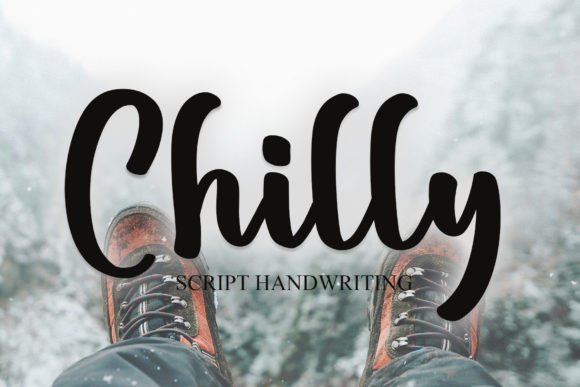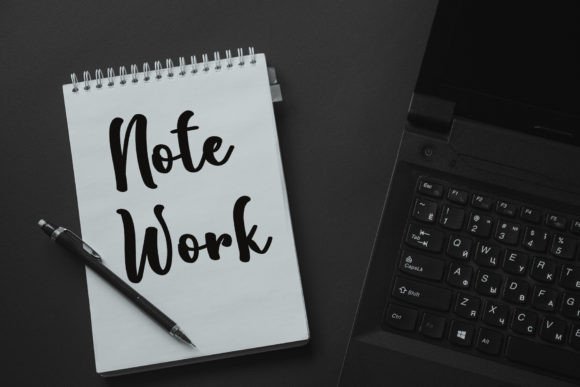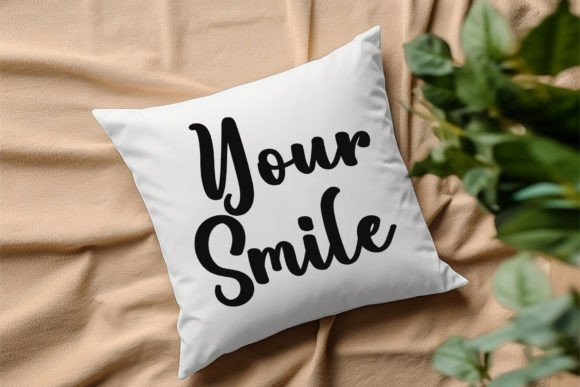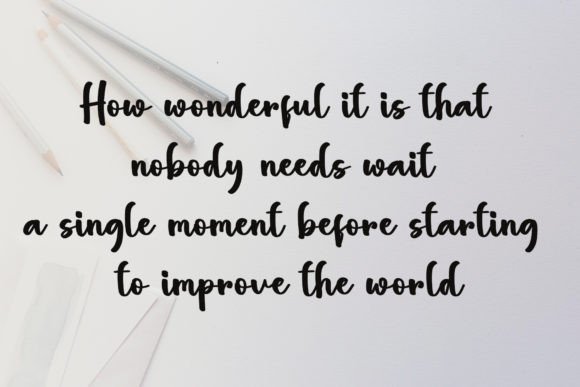
Chilly Font: Sweet Cursive Script for Wedding & Logo Design
About the Chilly Font
The Chilly Font is here to transform your projects with its distinctive character and style. Chilly is a sweet and cursive handwritten font. This gentle font will look gorgeous on a variety of design ideas. It will add a joyful and romantic touch to each of your projects! Perfectly fit for branding, logo, wedding things, greeting cards, fashion, lookbook, marketing promotion, anytime you want to look fancy elegant but still casual.
Chilly Font Usage Examples
Chilly Font Example